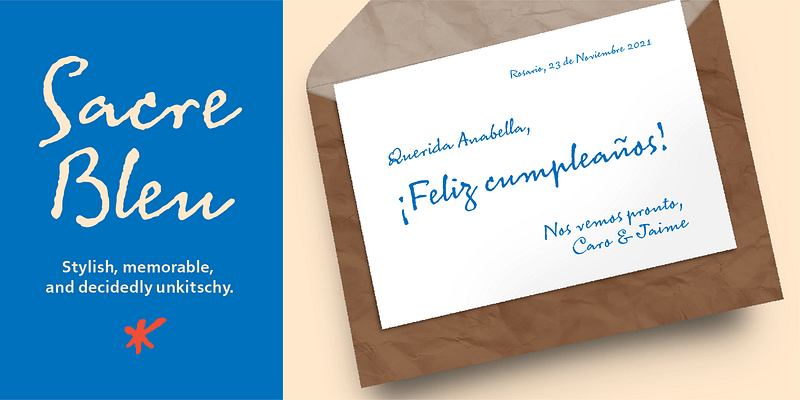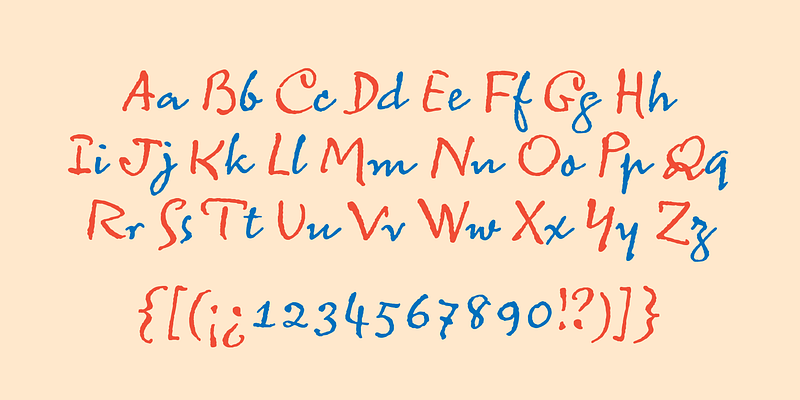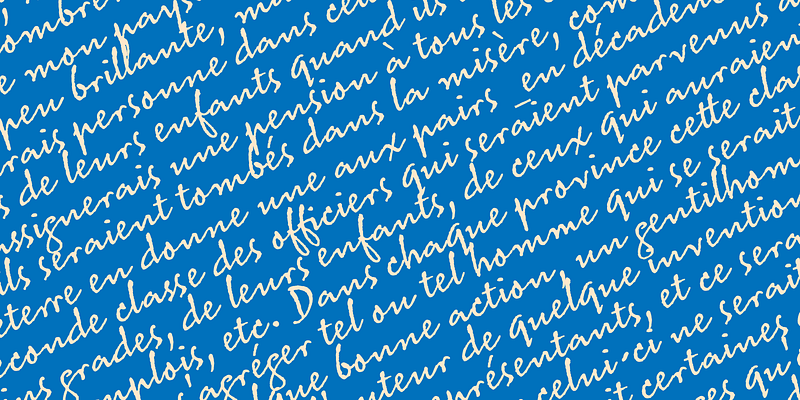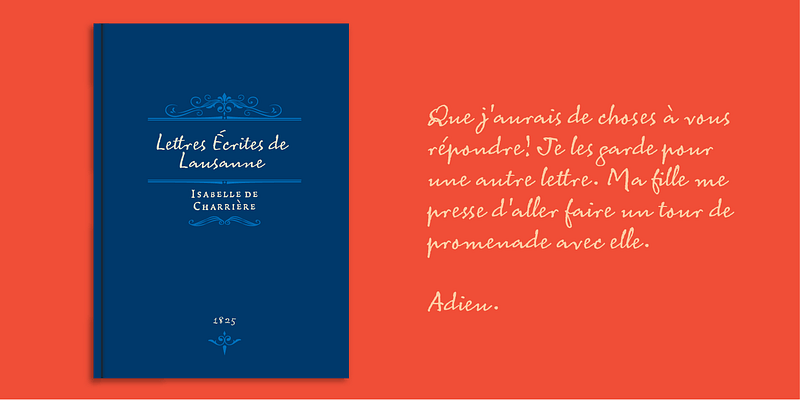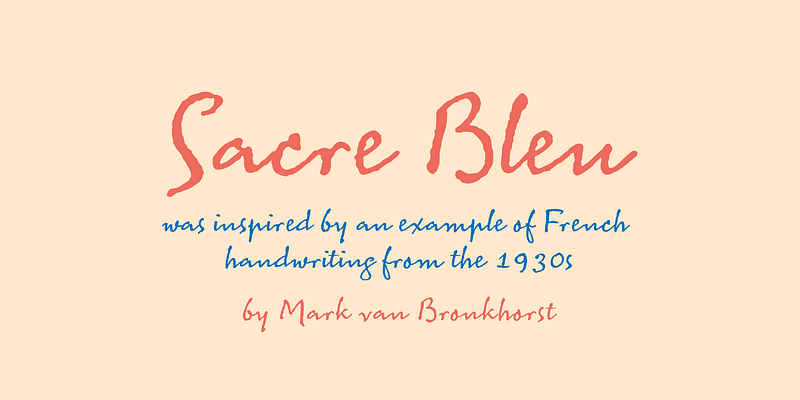
Mark van Bronkhorst’s MVB Sacre Bleu was inspired by an example of French handwriting from the 1930s. With a goal to keep the script as authentic as possible, the font includes a number of ligatures to avoid letterform repetition.
The year it released, MVB Sacre Bleu was selected as one of Typographica’s Favorite Typefaces, where reviewer Joshua Lurie-Terrell deemed it “stylish, memorable, and decidedly unkitschy.”